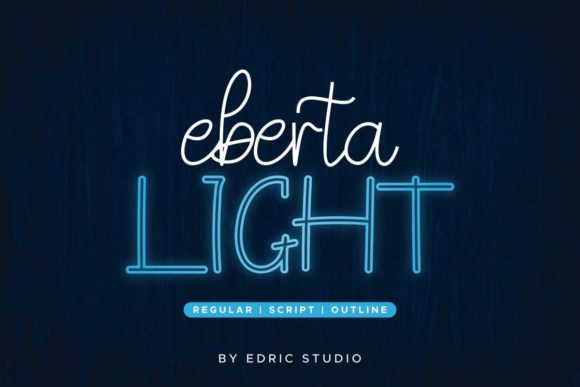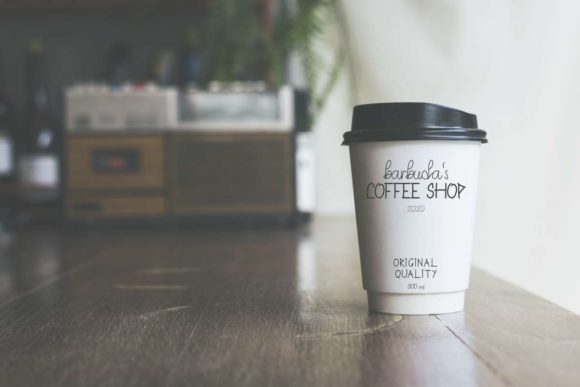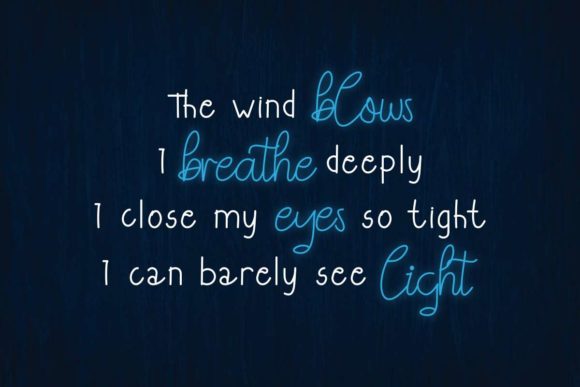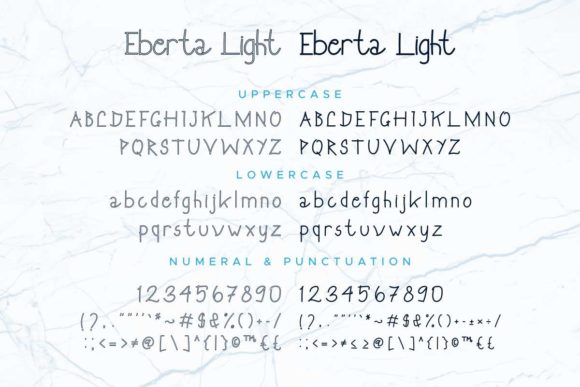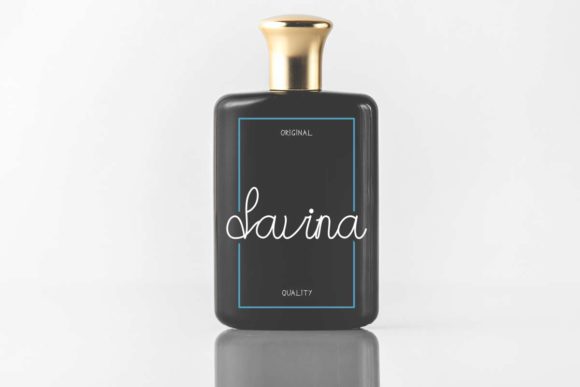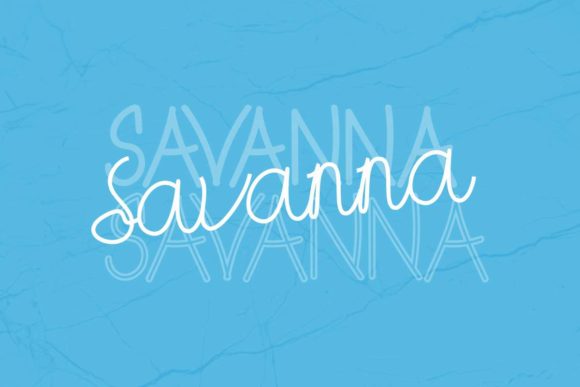
Eberta Light Font: Elevate Your Designs with a Unique and Versatile Typeface
In the world of typography, fonts play a crucial role in bringing creative ideas to life. Among the numerous fonts available, Eberta Light stands out as a unique and distinct typeface that can elevate your designs to the highest levels. In this article, we’ll explore the features and benefits of Eberta Light, and how it can become an essential part of your design toolkit.
What is Eberta Light Font?
Eberta Light is a carefully crafted font designed to cater to a wide range of design needs. Its unique characteristics make it incredibly versatile, allowing it to fit seamlessly into various design styles and projects. Whether you’re working on a branding project, a website, or a print design, Eberta Light can add a touch of sophistication and elegance.
Key Features of Eberta Light
- Unique and Distinct: Eberta Light boasts a distinct style that sets it apart from other fonts. Its unique features make it an excellent choice for designers looking to create something new and innovative.
- Versatility: This font is incredibly versatile and can be used in a wide range of designs, from modern and minimalist to elegant and sophisticated.
- Elegant and Refined: Eberta Light features elegant lines and refined curves, making it perfect for designs that require a touch of sophistication.
- High Readability: The font is designed to be highly readable, ensuring that your message is conveyed clearly and effectively.
Benefits of Using Eberta Light
So, why should you choose Eberta Light for your design projects? Here are some benefits that make it an excellent addition to your font collection:
- Enhance Your Designs: Eberta Light can elevate your designs to new heights, adding a touch of elegance and sophistication.
- Increase Versatility: With Eberta Light, you can experiment with various design styles and projects, knowing that this font can adapt to any creative direction.
- Save Time: The font’s high readability and unique features save you time and effort in the design process, allowing you to focus on other creative aspects.
- Stand Out: Eberta Light helps your designs stand out from the crowd, making them more noticeable and memorable.
How to Use Eberta Light in Your Designs
Adding Eberta Light to your design project is easy. Here are some tips to get you started:
- Pair it with Other Fonts: Experiment with pairing Eberta Light with other fonts to create a unique and harmonious typography.
- Use it for Headings and Titles: Eberta Light is perfect for headings and titles, adding a touch of elegance and sophistication to your design.
- Apply it to Body Text: The font’s high readability makes it suitable for body text, ensuring that your message is conveyed clearly.
Eberta Light is a game-changer for designers and crafters looking to elevate their designs to new heights. Its unique features, versatility, and elegance make it an essential part of any design toolkit. By adding Eberta Light to your favorite creative ideas, you’ll notice how it brings them to life, making them more noticeable, memorable, and effective.